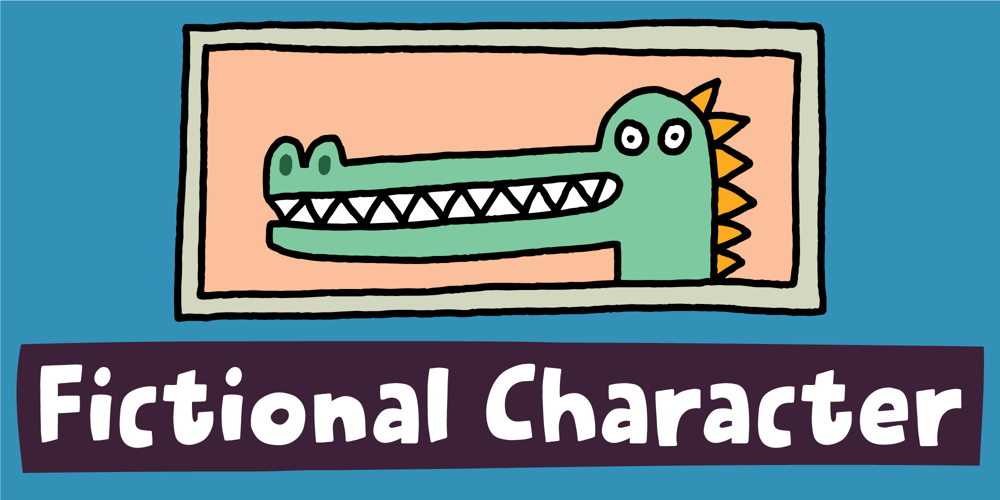
Fictional Character Font Family was designed by Jakob Fischer and published by PizzaDude.dk. Fictional Character contains 2 styles and family package options. Yes, I could have added more fictional characters to the graphical presentation for this font – because a fictional character was the original inspiration to this laid back, legible, handmade, fresh and easy going comic font. But I didn’t – but, when using the font, you can design your own fictional character. If you do, please send me your best take on a fictional character – I’d really like to see it! ๐